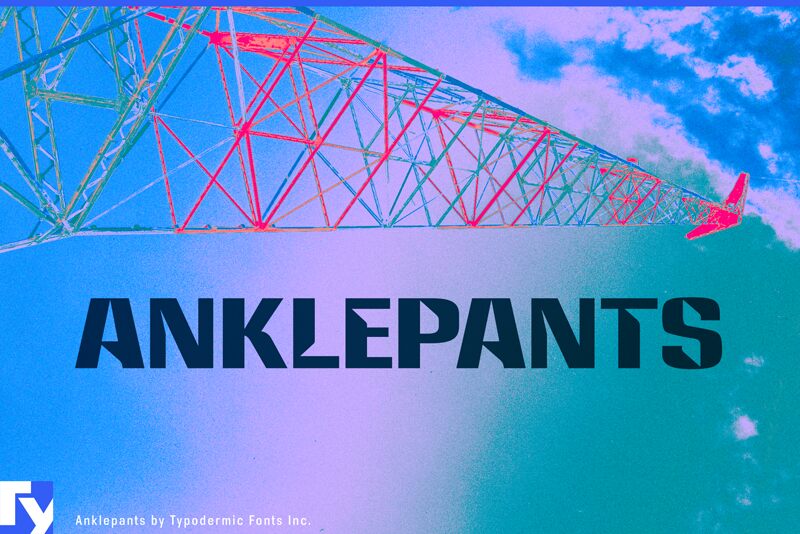
Anklepants-Regular
Anklepants, designed by Typodermic Fonts, is a striking display typeface that pays homage to the original designs used by CBS radio stations owned by Westinghouse. This bold, futuristic font exudes a sense of modern elegance, with sharp, angular letterforms that command attention. The clean, geometric aesthetic and robust, confident presence evoke a sense of technological advancement and forward-thinking vision.
Anklepants' versatility makes it a compelling choice for a wide range of design applications, from eye-catching headlines and logo designs to impactful branding and packaging elements. Its distinct character and bold presence lend themselves well to projects that seek to convey a sense of innovation, power, and progressive vision.